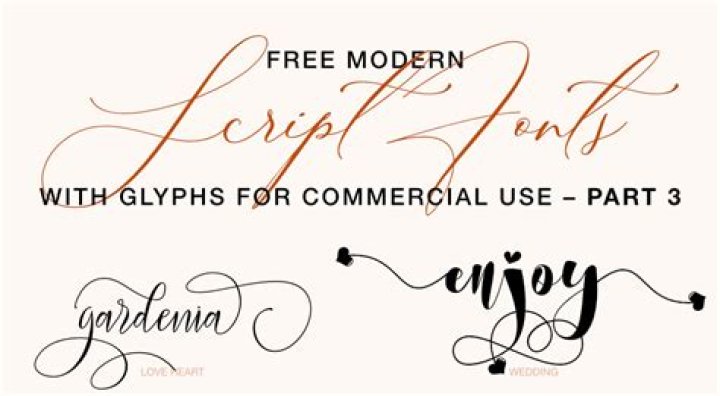
Typography Secrets: Fonts with the Best Glyphs
- Floralia.
- Rhomus Omnilots.
- Adobe Wood Type Ornaments.
- Nymphette.
- Davys.
- Zapf Dingbats.
- Victorian Free Ornaments.
- Adhesive Nr. Seven.
Do free fonts have glyphs?
Today’s free fonts with glyphs are a bit unique. Usually with a glyphed font, the main font is free, but the characters with glyphs can cost extra.
What is calligraphy fonts?
Calligraphy Fonts. Calligraphy is an artistic writing style where you vary the pressure to create thick and thin lines, all in a single stroke. It usually involves a nibbed pen ✒️ or brush 🖌️. The writing is readable, but is usually extravagant and embellished with flourishes. The main sub-styles are traditional calligraphy and modern calligraphy.
How many glyphs are in noelan script?
Featuring 351 glyphs, it is available for free download from Font Bundles in OTF format. The font comes with free personal and commercial use license. Noelan Script is a lovely modern calligraphy font with a clean design from Ndroadv.
What is the billowing script font?
The Billowing Script is a modern calligraphy font that was inspired by nature. It has a bouncy feel and features 243 glyphs and 64 alternate character along with stylistic alternates, standard ligatures, and other OpenType features.
What is qwigley font used for?
A contemporary calligraphy font with a stylized character set and a formal feel, Qwigley is suited for when you need a touch of elegance in your designs. Another great free font from TypeSETit, Qwigley is available in TTF format. View Qwigley font specimen on Google Fonts.